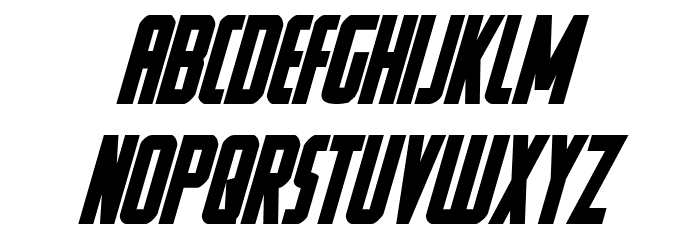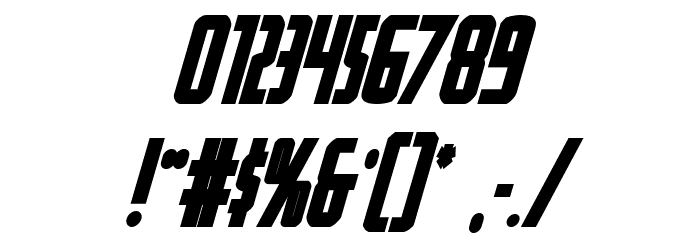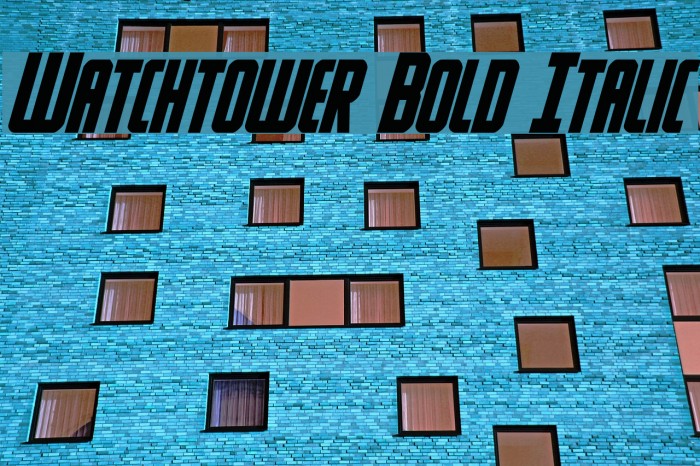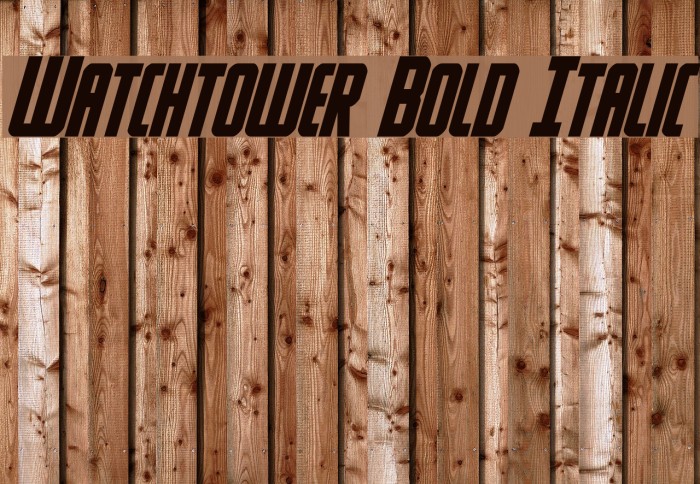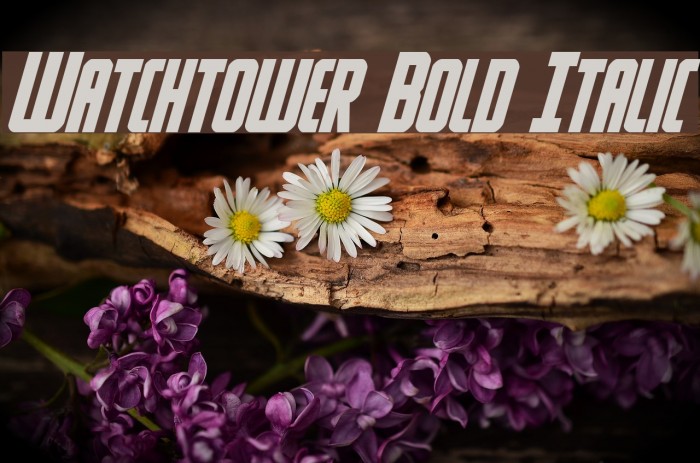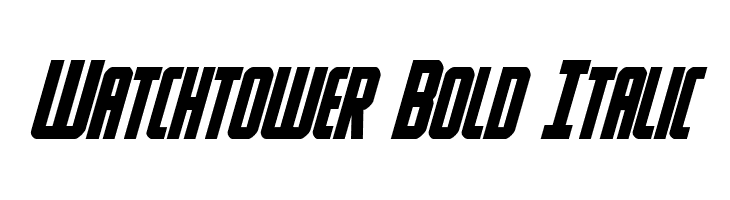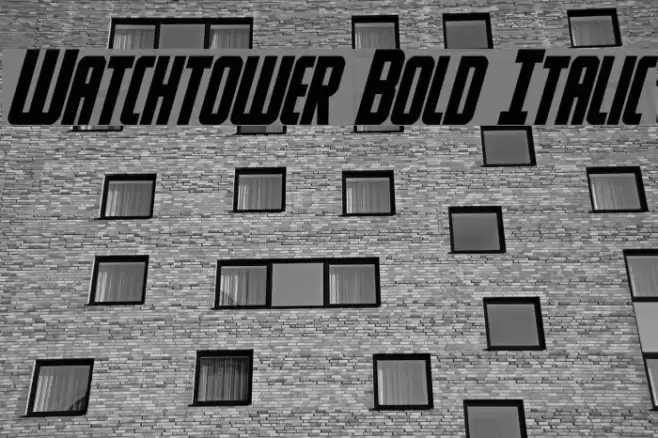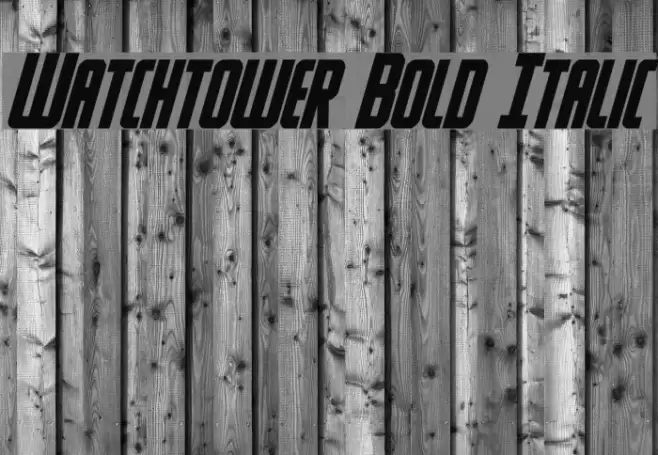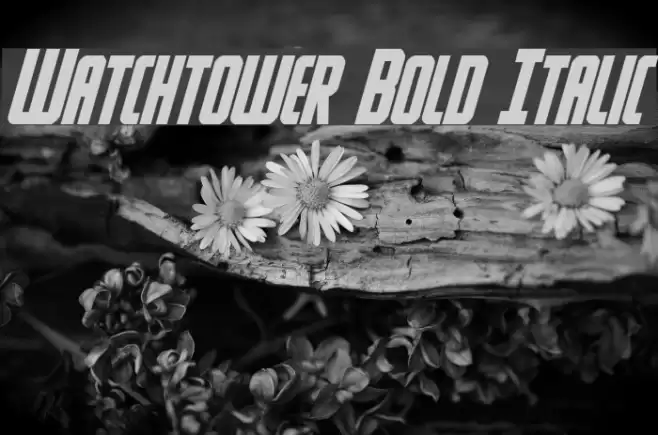
Watchtower Bold Italic Font
This font features a bold and italicized style with a strong, dynamic presence. The characters are slanted, giving a sense of motion and urgency. The strokes are thick and consistent, providing a robust and impactful appearance. The design is modern and sleek, with sharp angles and a slightly condensed form. This font is highly legible and commands attention, making it suitable for various display purposes.
A bold, italicized font with a dynamic and modern style.
- Proposed Projects: Ideal for headlines, posters, logos, and branding materials that require a strong visual impact.